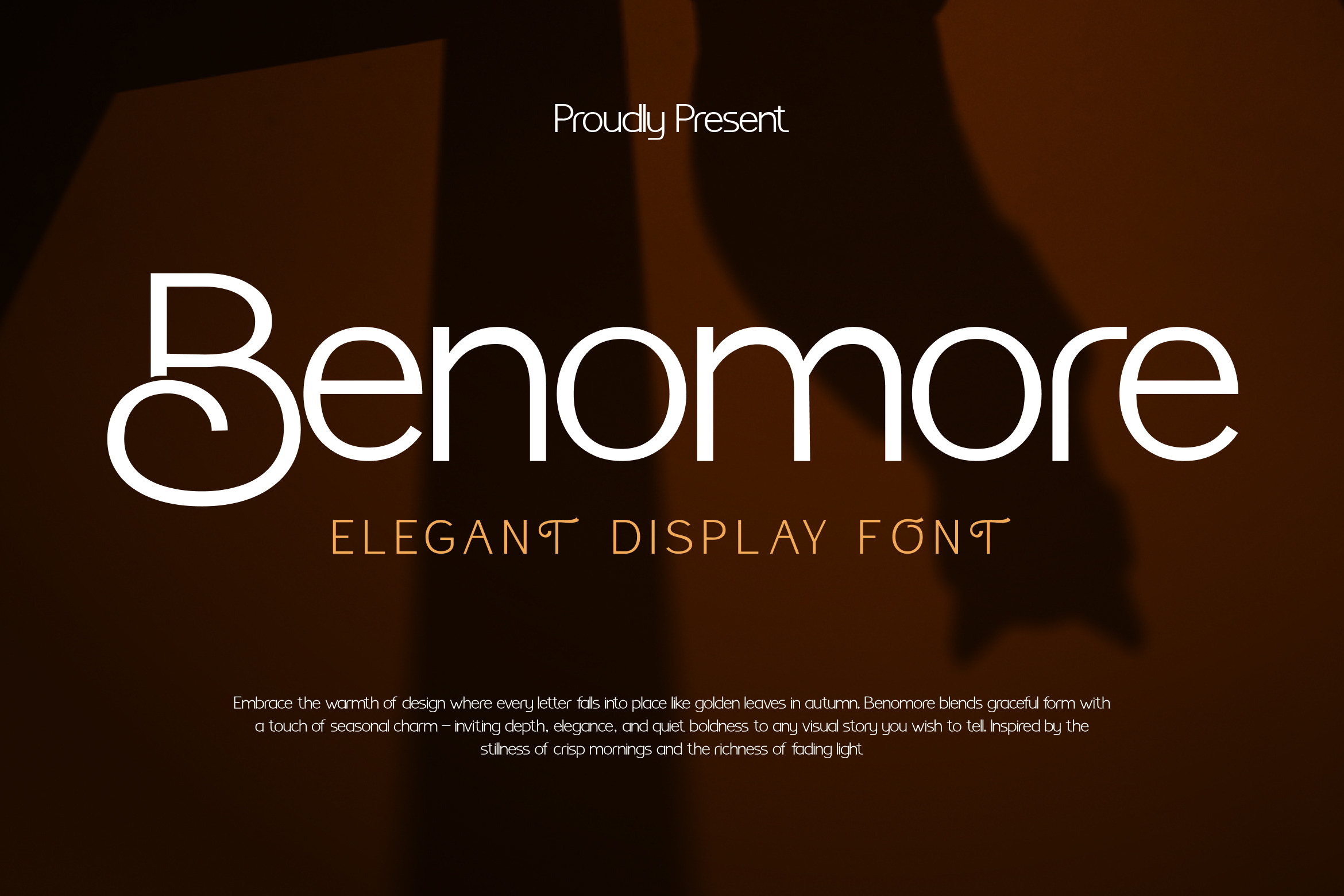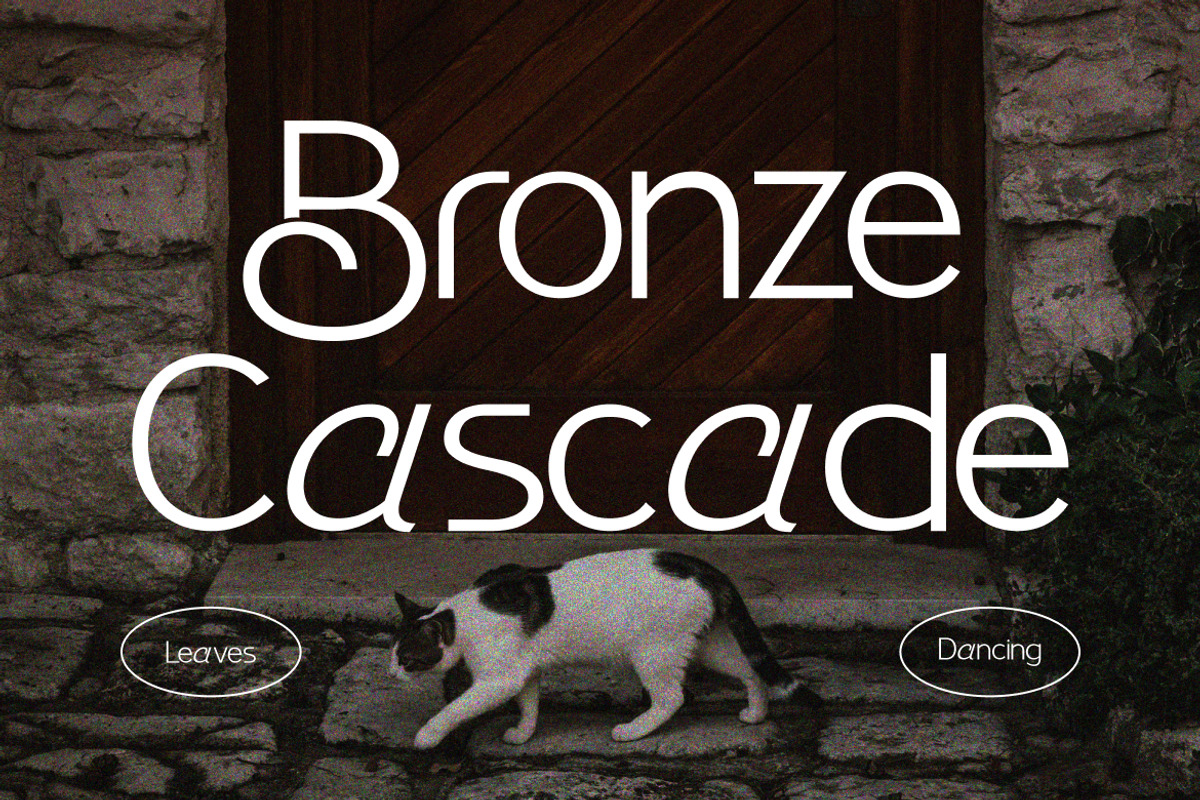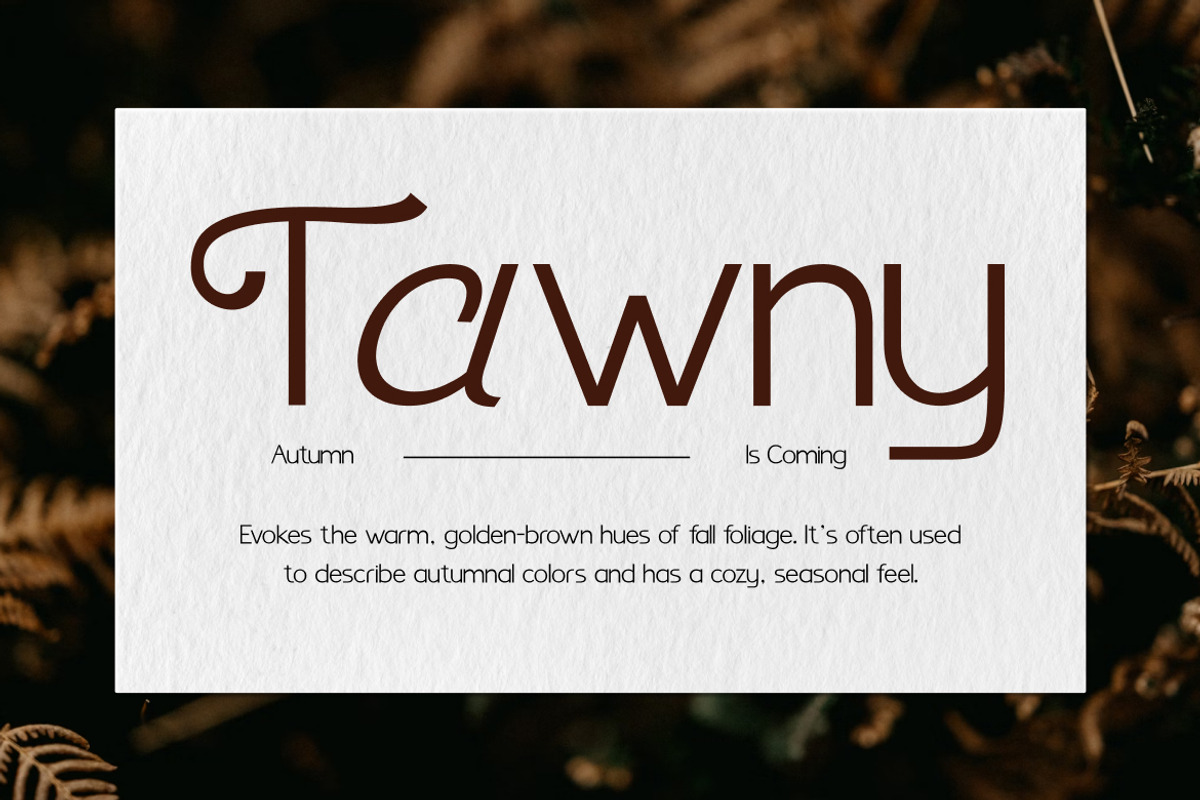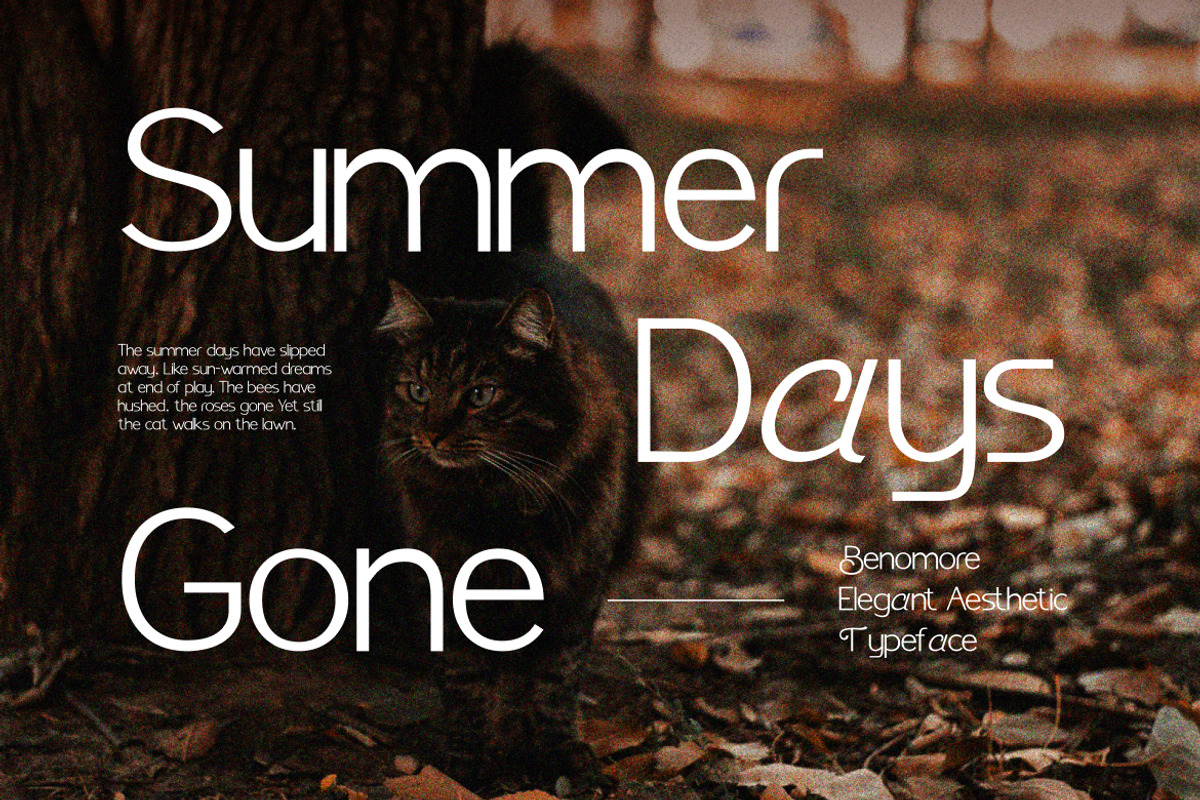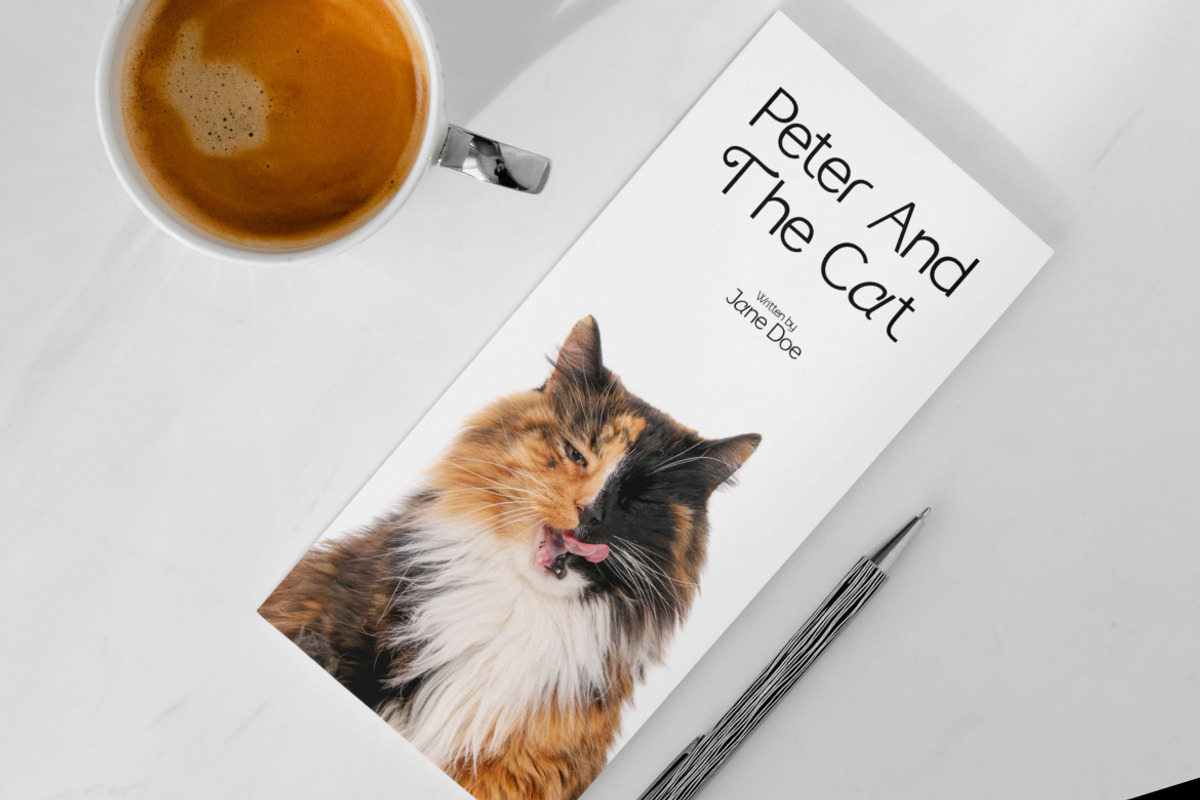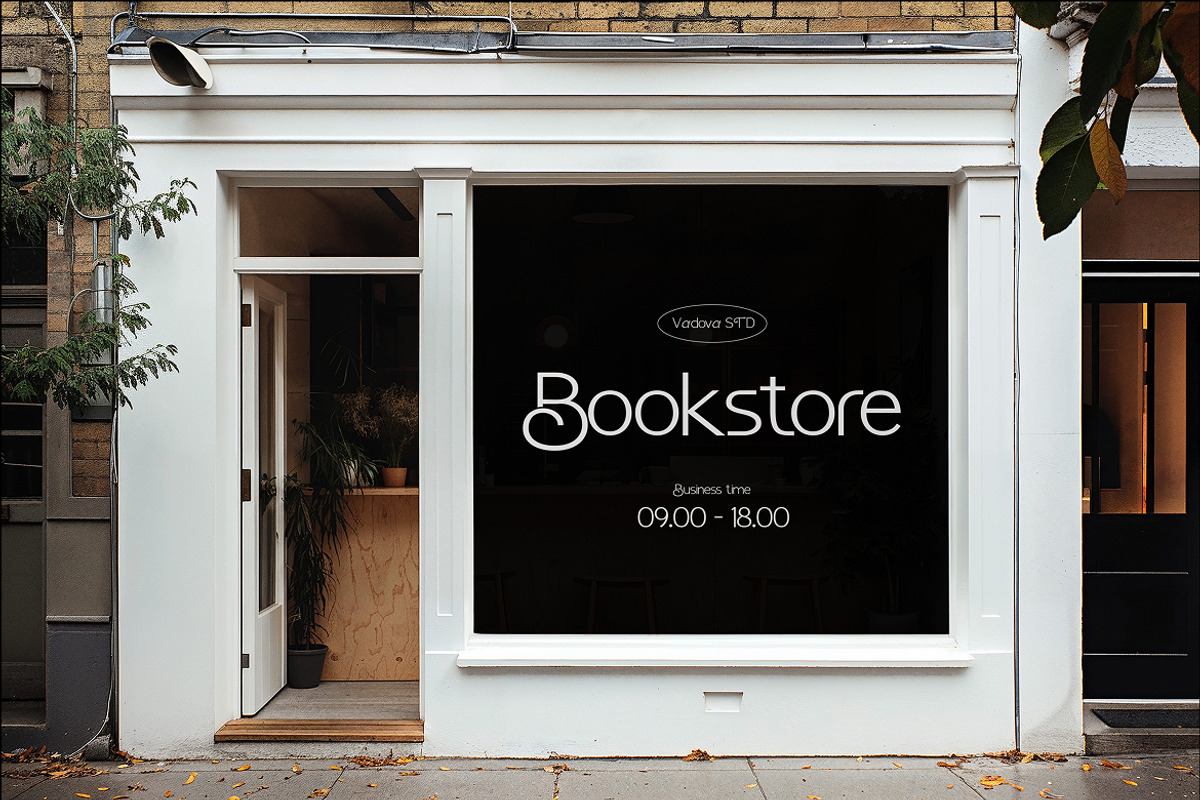
Benomore - Elegant Display Font
Benomore is an elegant display font that blends graceful curves with a refined modern touch. Inspired by timeless aesthetics and seasonal warmth, this typeface brings sophistication and quiet boldness to every project. Its smooth proportions and stylish details make it a versatile choice for branding, editorial design, fashion logos, and premium packaging.
Why Choose Benomore:
Elegant curves with a modern minimal look
High-end feel perfect for luxury projects
Versatile style that adapts to both digital and print
Sophisticated personality for impactful visual storytelling
Luxury branding & fashion identity
Editorial design & magazine covers
Wedding invitations & stationery
Posters, flyers, and lifestyle promotions
Packaging & product design
Social media graphics & digital ads
Elegant display style
Smooth decorative curves
Refined proportions for stylish layouts
Best suited for headlines, logos, and branding
Timeless design with a premium vibe
Bring a sense of refinement, charm, and modern elegance into your creative work with Benomore.